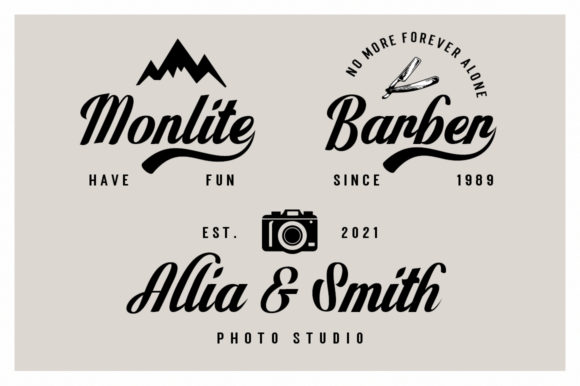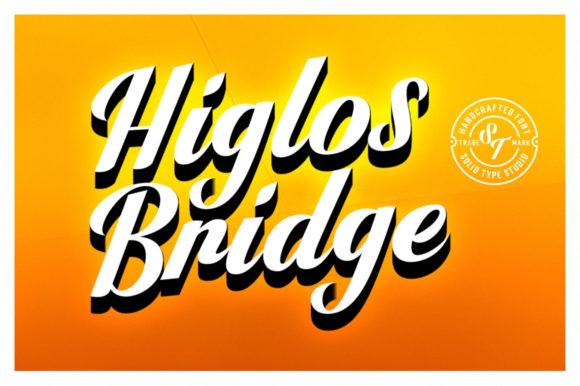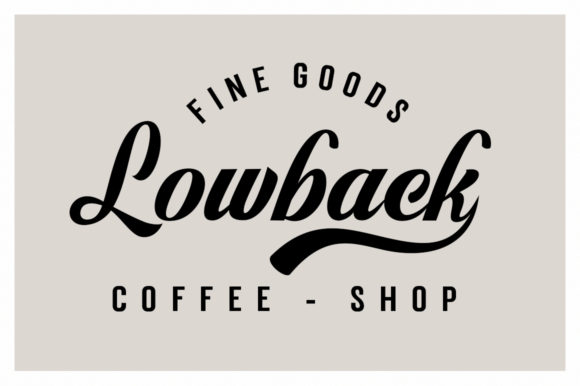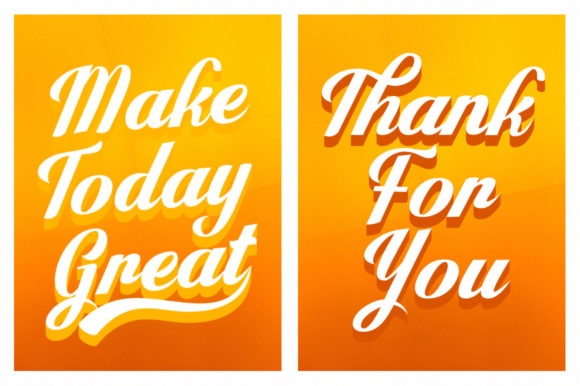
Cential Font: Elevate Your Designs with a Touch of Vintage Elegance
Are you on the hunt for a font that exudes classic charm with a modern twist? Look no further than Cential Font, a highly legible script font that combines bold, vintage flair with a dash of fun. This versatile typeface is perfect for designers and crafters seeking to add a touch of sophistication to their projects. In this article, we’ll dive into the world of Cential Font, exploring its features, uses, and benefits.
A Font that Stands Out: Key Features of Cential
Cential Font boasts an impressive array of features that set it apart from other script fonts. Some of its key characteristics include:
- High Legibility: Cential’s carefully crafted design ensures that it remains clear and readable, even at smaller sizes.
- Bold and Classic: The font’s bold strokes and classic lines evoke a sense of timeless elegance.
- Fun and Vintage: Cential’s playful touches and vintage flair add a whimsical feel to any design.
- Open-Type Features: With stylistic alternates, you can easily customize your text to suit your design needs.
- PUA Encoded: Cential’s PUA encoding allows for effortless access to all glyphs and swashes.
Endless Possibilities: Using Cential Font in Your Designs
Cential Font’s versatility knows no bounds. Its wide range of applications makes it an excellent addition to any designer’s toolkit. Some ideas for using Cential Font include:
- Posters and Flyers: Create eye-catching posters and flyers with Cential’s bold, attention-grabbing design.
- T-Shirts and Apparel: Add a touch of vintage flair to your t-shirt designs with Cential’s unique script style.
- Signage and Displays: Use Cential Font to create visually appealing signage and displays that showcase your brand’s personality.
- Logos and Branding: Establish a strong brand identity with Cential’s distinctive, memorable design.
- News and Media: Add a touch of sophistication to your news articles, blog posts, and other written content.
- Badges and Labels: Create custom badges and labels with Cential’s elegant, easy-to-read design.
International Support and Language Compatibility
Cential Font offers international support for most Western languages, ensuring that your designs can reach a global audience. Whether you’re targeting English, Spanish, French, or any other Western language, Cential Font has got you covered.
Why Choose Cential Font?
With so many fonts available, why choose Cential? Here are just a few reasons why designers and crafters love Cential Font:
- Unique Design: Cential’s distinctive blend of classic and vintage elements sets it apart from other fonts.
- Ease of Use: With PUA encoding and open-type features, Cential Font is easy to use and customize.
- Versatility: Cential’s wide range of applications makes it an excellent addition to any designer’s toolkit.
- High Legibility: Cential’s careful design ensures that it remains clear and readable, even at smaller sizes.